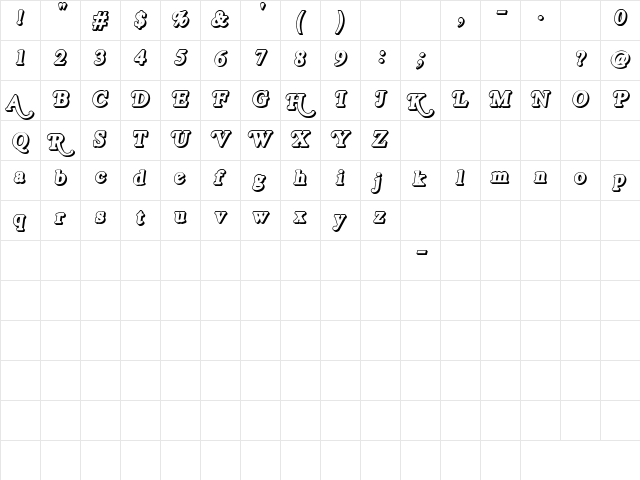
Royal Acidbath Outline
| Style | Outline |
| Designer | Dennis Ludlow |
Design Context for Royal Acidbath Typeface
Royal Acidbath brings ornamental detail and strong personality to headlines and identities, where visual impact matters more than quiet functionality.